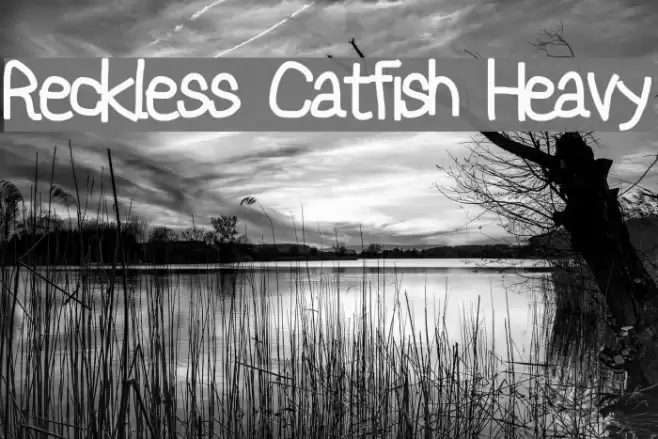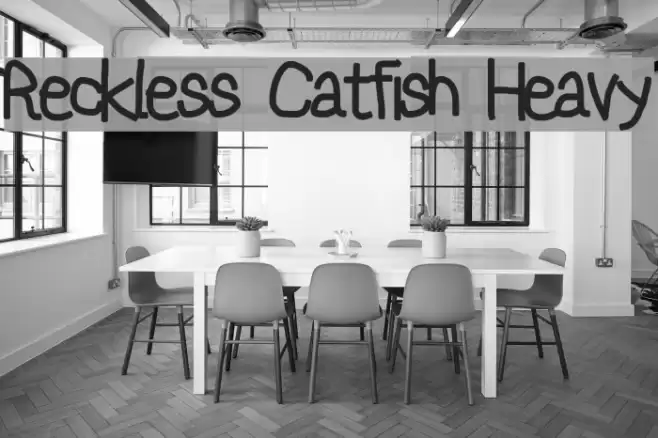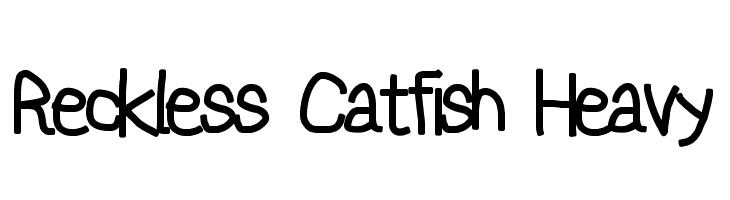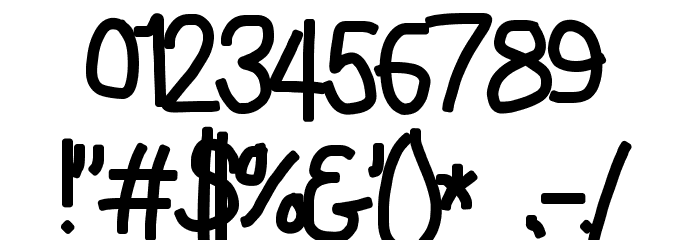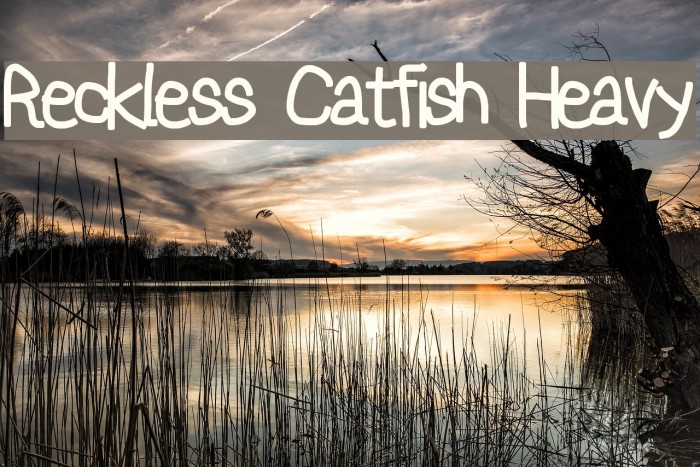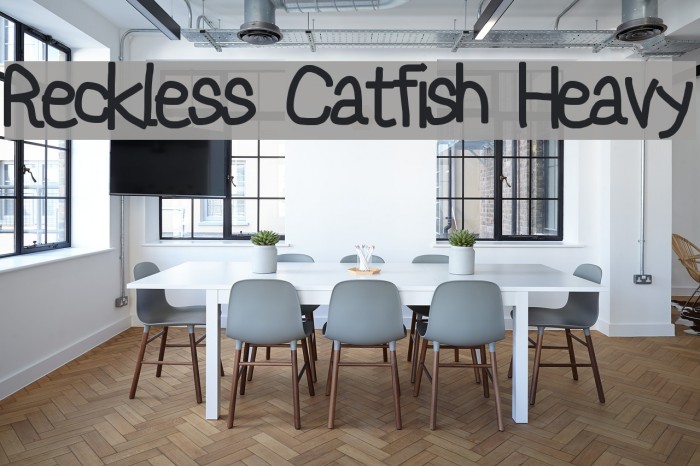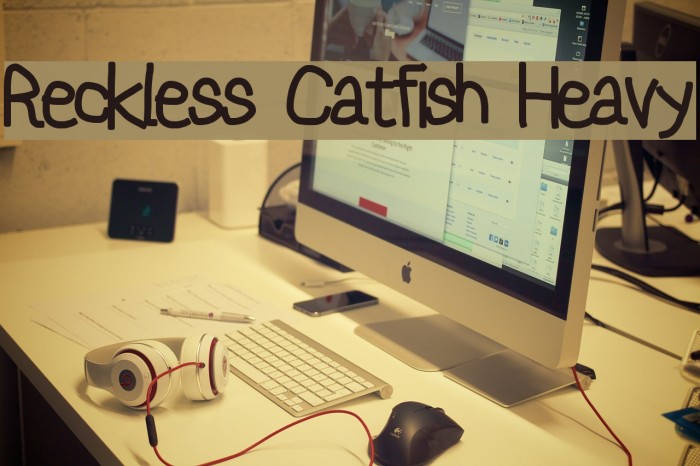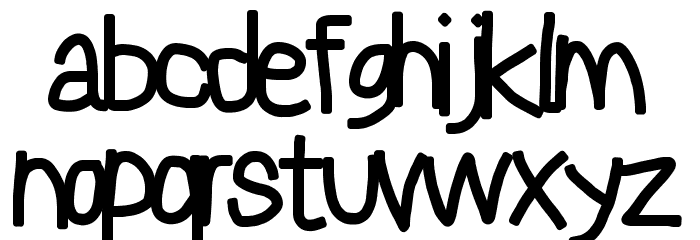
Reckless Catfish Heavy Font
Reckless Catfish Heavy Description
This font features a bold, handwritten style with a playful and casual appearance. The characters are slightly irregular, giving it a dynamic and lively feel. The uppercase and lowercase letters maintain a consistent thickness, contributing to its bold presence. Numbers and special characters follow the same playful design, making it suitable for creative and informal projects. The overall style is modern and expressive, with a touch of whimsy that adds character to any design.
A bold, playful handwritten font with a modern and lively style from Uncategorized fonts.
- Overall Style: Modern, Decorative